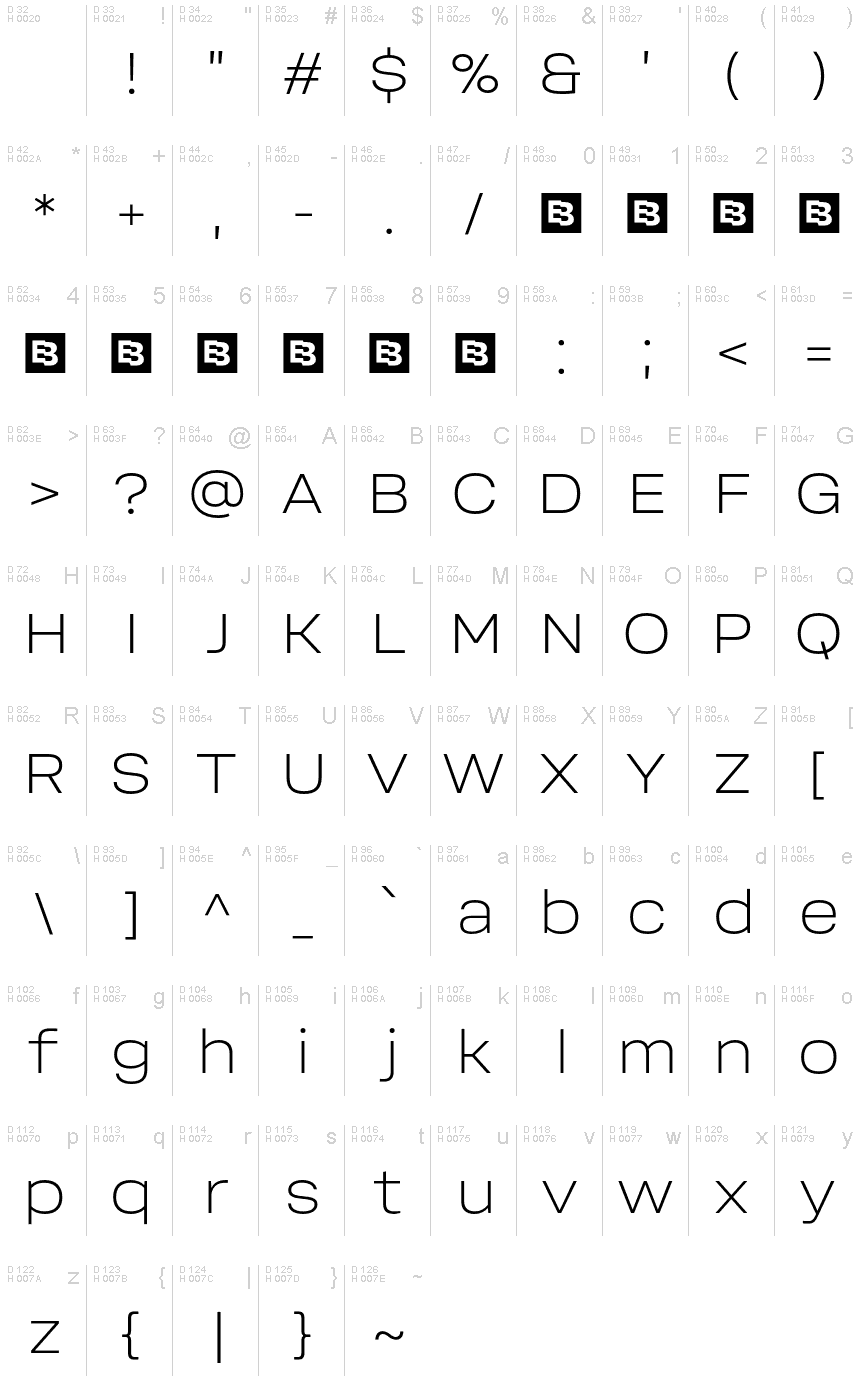
Soliden Light Expanded is a stunning sans serif font from the talented font designer, Eko Bimantara. With its elegant and modern style, this light-weight typeface is perfect for a wide range of projects.
Whether you're designing a minimalist website, creating eye-catching logos, or crafting sleek packaging designs, Soliden Light Expanded will add a touch of sophistication and professionalism to your work. Its expanded width adds extra impact and emphasis to your text, making it ideal for headlines and titles that need to stand out. Embrace the versatility of Soliden Light Expanded and elevate your design projects to new heights.